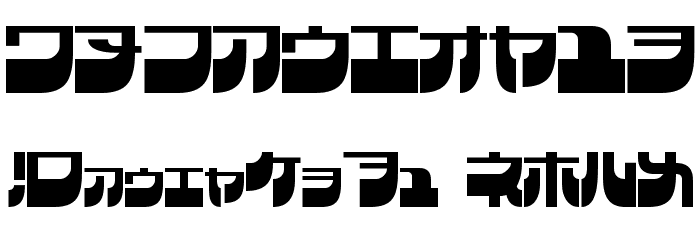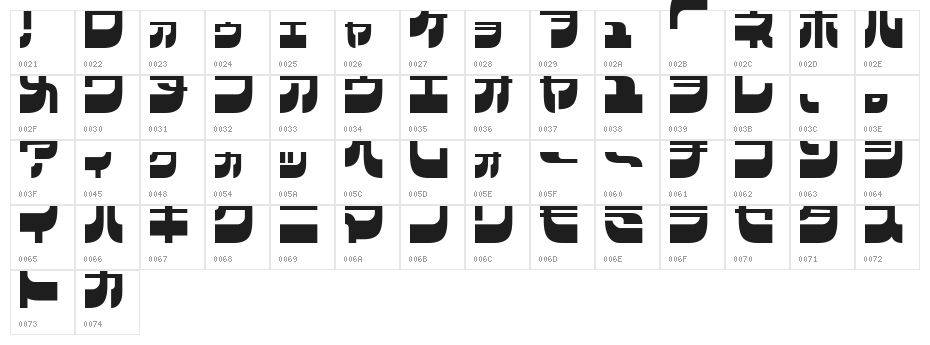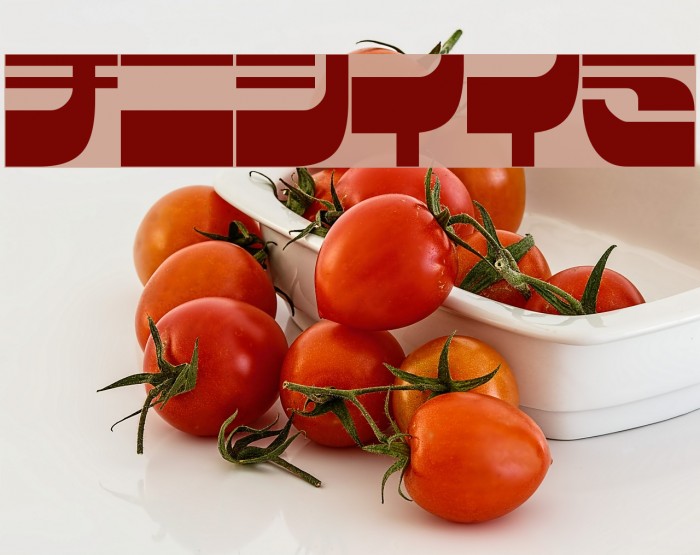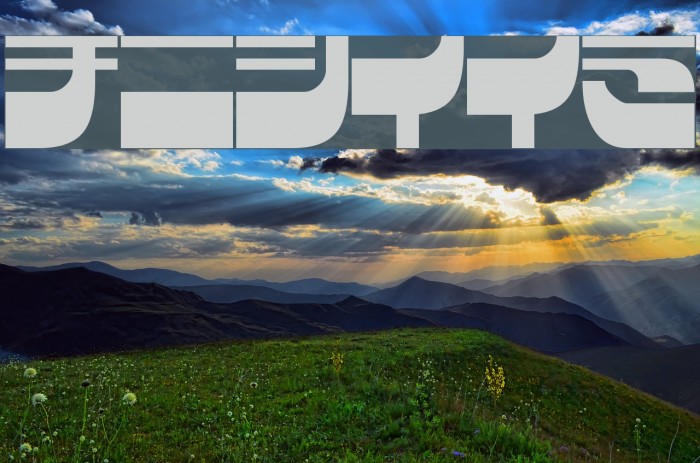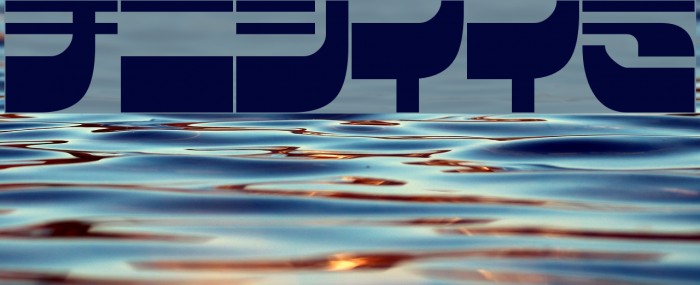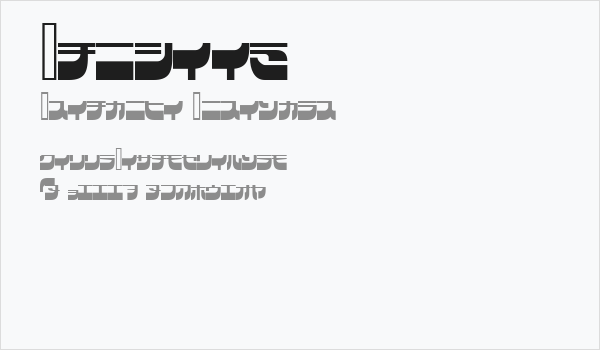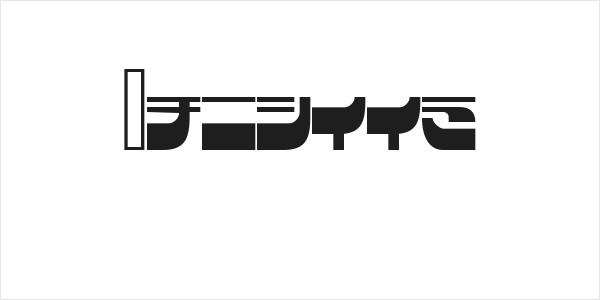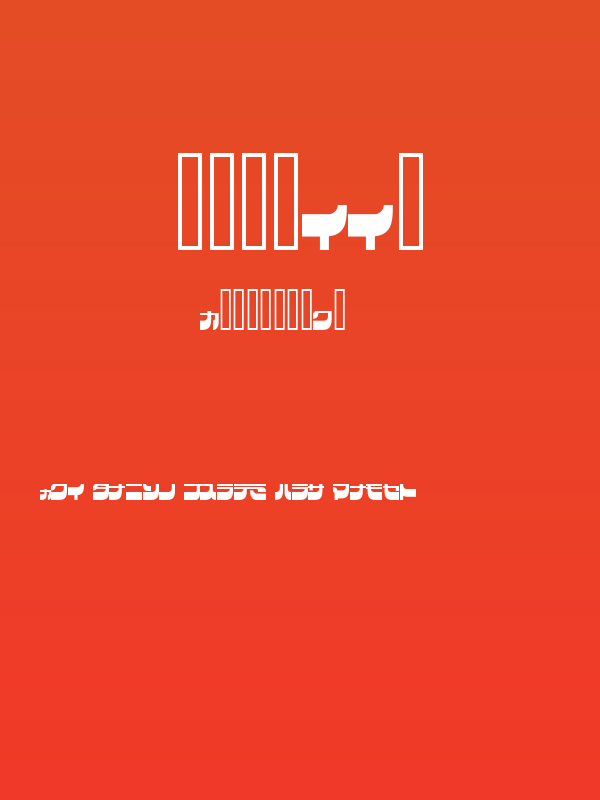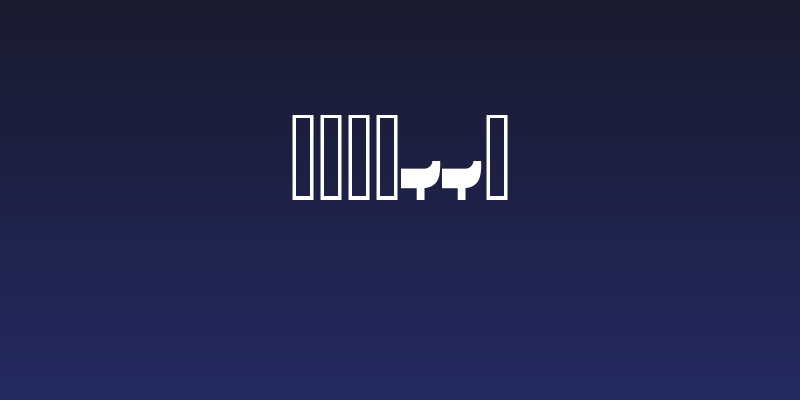
Raideen Font
Raideen Description
This font features a bold, futuristic design with a strong emphasis on geometric shapes and thick lines. The characters are wide and have a distinct block-like appearance, creating a sense of strength and modernity. The use of vertical and horizontal lines gives it a structured and organized look, while the rounded edges add a touch of softness. This font is highly stylized, making it ideal for projects that require a unique and eye-catching typeface. Its boldness ensures readability even at smaller sizes, while the geometric design makes it suitable for tech-related themes.
| Proposed Projects | Ideal for tech-related branding, futuristic posters, video game titles, and sci-fi book covers. |